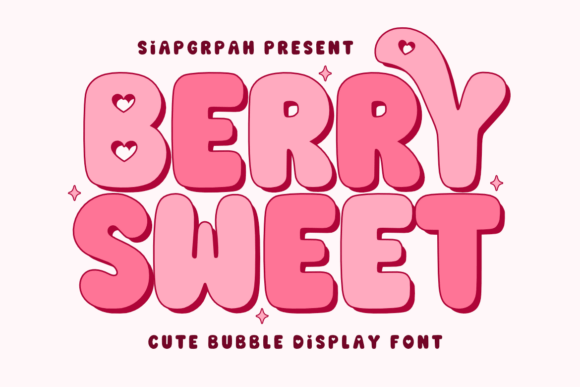
Bringing Joy to Your Designs with Berry Sweet Font
Have you ever been in the middle of a design project, and suddenly, it feels like something’s missing? You’re not quite sure what it is, but you know it’s not quite right. I’ve been there too! I was working on a fun project for a client’s kids’ party invitations, and I just couldn’t find the perfect font to capture the playful vibe I was going for. That’s when I stumbled upon Berry Sweet, a charming bubble display font that instantly brought my design to life!
The Magic of Berry Sweet
Berry Sweet is more than just a font – it’s an experience. Its soft curves and bold appearance make it perfect for creating eye-catching headlines, posters, social media graphics, and branding that stands out. This delightful font is both fun and versatile, making it an excellent addition to any designer’s toolkit.
• ✨ Playful and charming: Berry Sweet has a unique, bubbly personality that adds a touch of whimsy to any design.
• ✅ Easily legible: Despite its playful nature, the font remains clear and easy to read, even in larger sizes.
• 💫 Versatile: Berry Sweet works well for a wide range of design projects, from kids’ party invites to social media graphics and more.
While Berry Sweet is an amazing font, there are a few things to keep in mind:
• ⚠️ Limited use in formal designs: Berry Sweet’s playful nature might not be suitable for more formal or professional designs, such as corporate branding or business reports.
• 🤔 Some letter spacing issues: In certain situations, you might need to adjust the letter spacing to achieve the perfect look.
The Story Behind Berry Sweet
Berry Sweet was designed with one goal in mind: to bring joy and playfulness to your designs. Its creator, a talented type designer, was inspired by the whimsical world of childhood and the magic of sweet treats. With Berry Sweet, you can add a touch of that magic to your projects and make them truly special.
Font Name Berry Sweet Font
Author SiapGraph
Q: What type of designs is Berry Sweet best suited for?
A: Berry Sweet is perfect for designs that require a playful touch, such as kids’ party invitations, social media graphics, posters, and more.
Q: Is Berry Sweet easy to read?
A: Yes, despite its playful nature, Berry Sweet remains clear and easy to read, even in larger sizes.